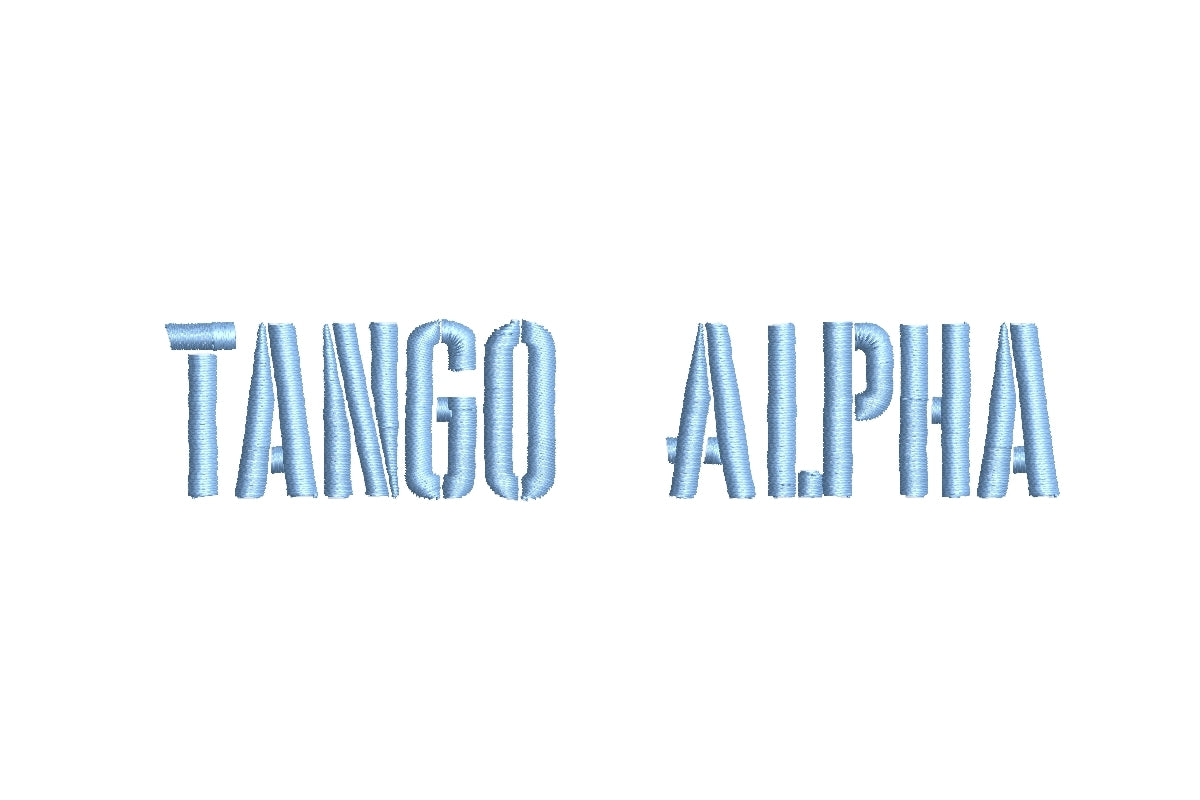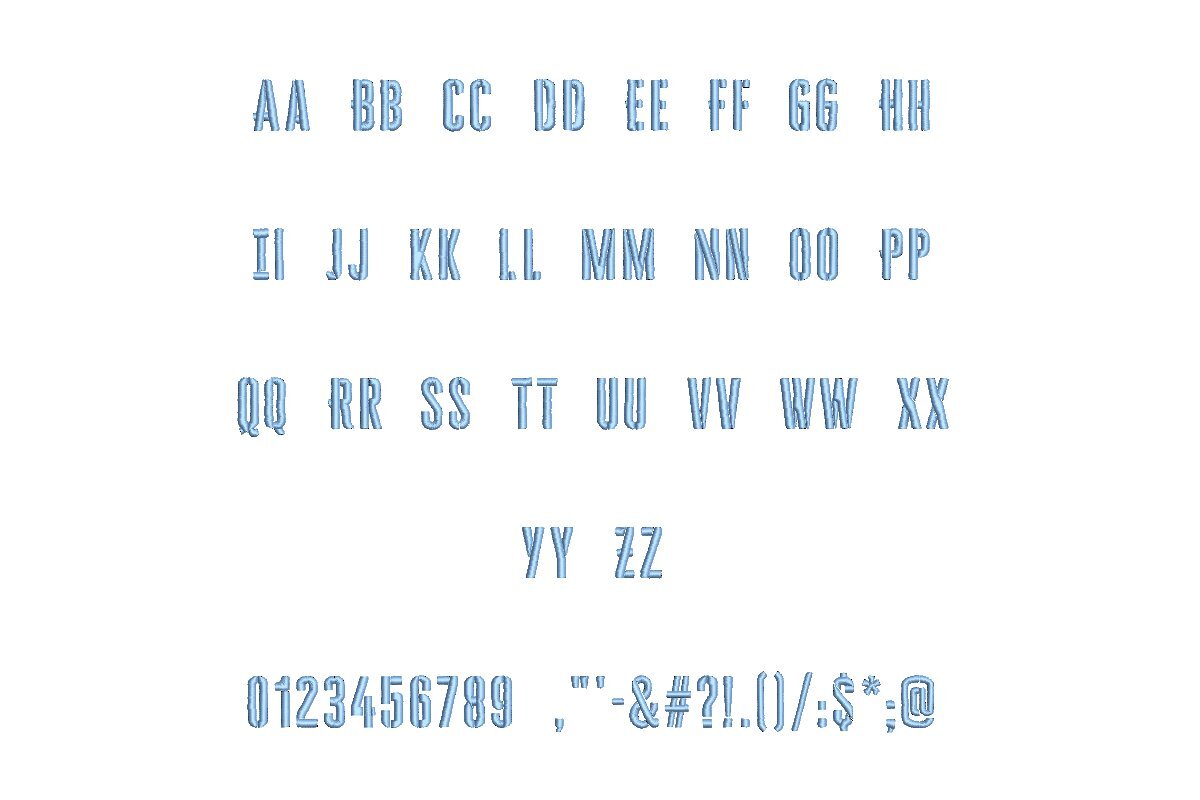
Elevate your embroidery creations with the TANGO ALPHA ESA font, expertly designed for compatibility with Wilcom Studio e4.5.6 and Hatch 3 versions and beyond. This font exemplifies precision and versatility, ensuring impeccable stitching quality for your projects. Its modern design, inspired by the energy of tango, adds a dynamic flair to monograms, logos, and text. The ESA format guarantees precise digitization, seamlessly integrating with Wilcom Studio and Hatch. TANGO ALPHA ESA font streamlines your design process, delivering unmatched clarity and style. Elevate your embroidery to professional levels with this energetic choice, perfect for those seeking a vibrant touch to their designs.